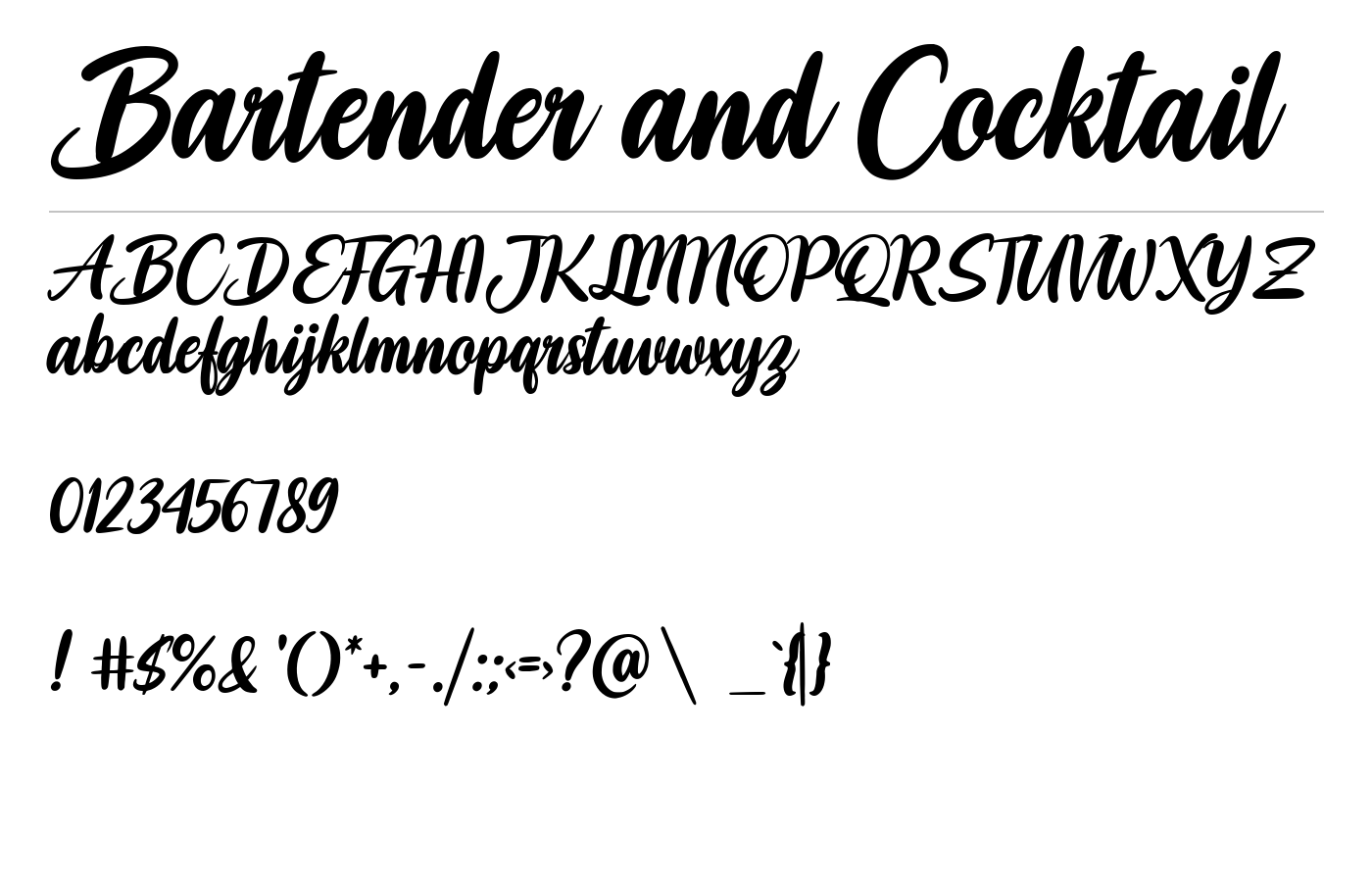
Bartender and Cocktail is a lively and stylish script font that combines smooth, flowing strokes with a moderate contrast, creating an inviting and modern look. Its well-balanced letterforms and casual elegance make it perfect for branding related to nightlife, bars, and trendy lifestyle products, bringing a friendly yet sophisticated vibe to any design. This font works beautifully for logos, packaging, headlines, and social media graphics where personality and charm are key.
Bartender and Cocktail Font
About Bartender and Cocktail Font